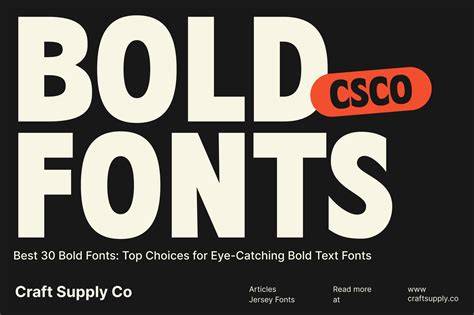
Boldest Fonts For A Stand-Out Look In 2023
2020 brought us many bold and daring changes in fashion, lifestyle, and even in the world of typography. In 2023, there is no doubt that bold fonts will be the go-to pick for anyone looking to stand out and make a statement. Whether you’re designing a website, creating a logo, or just looking for a unique way to express yourself, bold fonts are the perfect way to do it.
What Makes a Bold Font?
Bold fonts are defined by their thick strokes, making them perfect for creating an impactful look. A bold font is usually thicker than a normal font, but this thickening can be done in different ways. Some fonts may have letterforms that are cut off in the middle, others are just thicker than the normal versions, and some are created with a heavier weight. Many bold fonts also include wide spacing between the letters, creating an even bolder look.
Most Popular Bold Fonts in 2023
When it comes to bold fonts, there are countless options to choose from. Here are some of the most popular bold fonts in 2023 that you should consider:
1. Montserrat Bold
Montserrat Bold is a versatile font that comes in both serif and sans-serif variants. Its bold weight makes it perfect for headlines, logos, and any other type of design that needs a strong visual impact. Its thick strokes and wide spacing make it stand out, while its rounded edges give it a modern touch.
2. Bebas Neue Bold
Bebas Neue Bold is a modern sans-serif font that has become increasingly popular in 2023. Its bold weight makes it perfect for creating a bold statement, while its geometric shapes give it a modern and minimalistic look. It is perfect for creating logos, headlines, and other design projects that need a strong visual impact.
3. Recoleta Bold
Recoleta Bold is a modern serif font that is perfect for creating a classic and timeless look. Its bold weight gives it a strong and impactful look, while its thin strokes and wide spacing make it stand out. It is perfect for creating logos, headlines, and any other type of design that needs a classic and timeless look.
4. Oswald Bold
Oswald Bold is a modern sans-serif font that has become increasingly popular in 2023. Its bold weight makes it perfect for creating a bold statement, while its geometric shapes give it a modern and minimalistic look. It is perfect for creating logos, headlines, and other design projects that need a strong visual impact.
Finding the Perfect Bold Font for Your Project
When it comes to finding the perfect bold font for your project, it’s important to take into consideration the context in which you’ll be using it. Consider the size of the font, the colors you’ll be using, and the overall design aesthetic. Make sure to look for a font that complements the rest of the design, and don’t be afraid to try out different fonts until you find the perfect fit.
Bold fonts are a great way to make a statement in 2023. Whether you’re looking for a bold font to create a logo, headline, or any other type of design, there are countless options to choose from. From Montserrat Bold to Recoleta Bold, there is a bold font out there that will be perfect for your project.